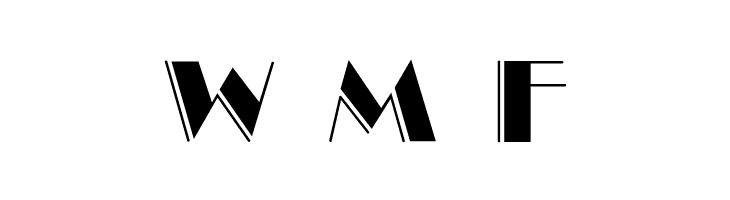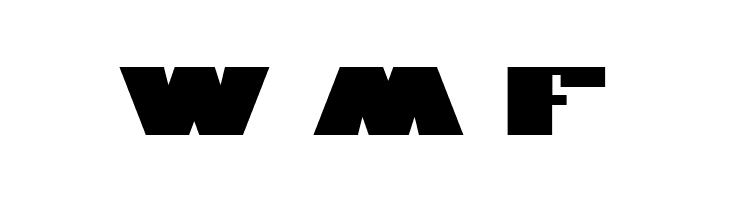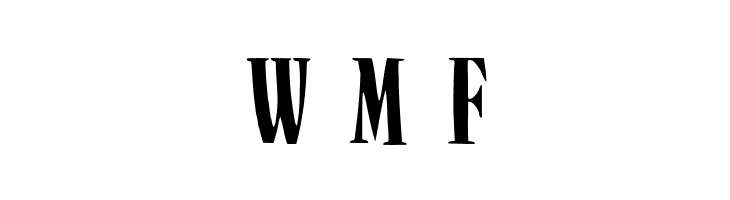
A bold, high-contrast serif font with decorative elements and sharp serifs.
A bold, high-contrast, vintage-style serif font with a condensed appearance.
A bold, high-contrast serif font with a classic and authoritative style.
A bold, decorative font with characters in spiky star shapes, offering high contrast and visual impact.
A bold, italicized, extended font with high contrast and a modern, dynamic style.
A bold, gothic-inspired font with sharp, angular edges and high contrast.
( Fonts by Dieter Schumacher )
A bold, italicized font with sharp, angular strokes and high contrast, exuding energy and modernity.
A bold, decorative font with ornate swirls and high contrast.
A bold, decorative font with blocky, geometric characters and low contrast.
( Fonts by Spork Thug Typography - Josh Wilhelm - www.lifewithouttaffy.com/taffy/blog )
A distressed, grunge-style font with rough, textured edges and high contrast.
A bold, high-contrast italic font with sharp serifs and a decorative style.
A bold, Art Deco-inspired font with geometric shapes and high contrast.
A futuristic, geometric font with bold strokes and high contrast.
A bold, striped, and playful italic font with medium contrast and tight spacing.